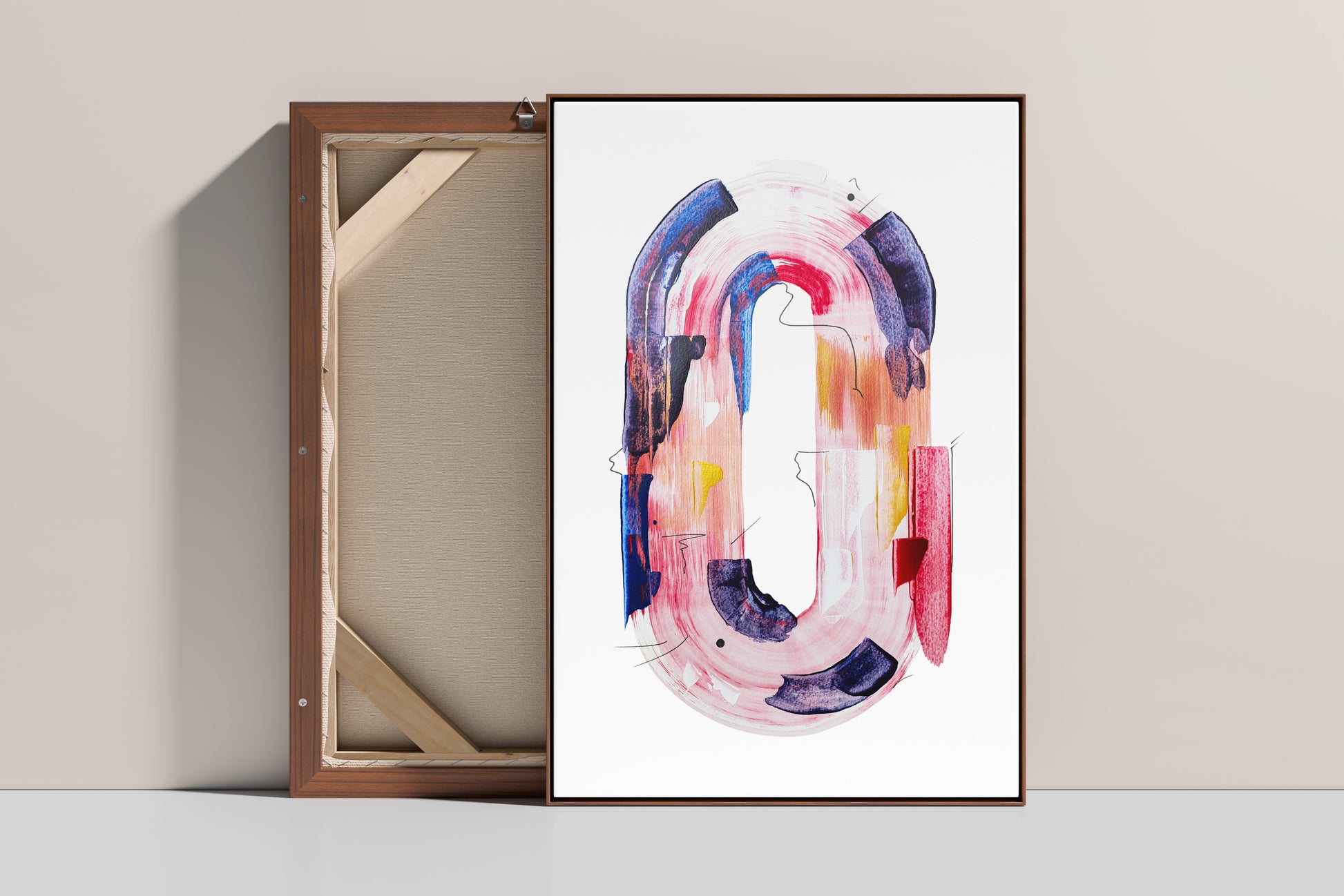
Acrylic 'O'
(Sold) An abstract interpretation of the letter “O,” painted in acrylic on A3 paper. Gentle pink and purple hues make it a soft yet eye-catching addition to minimalist spaces.